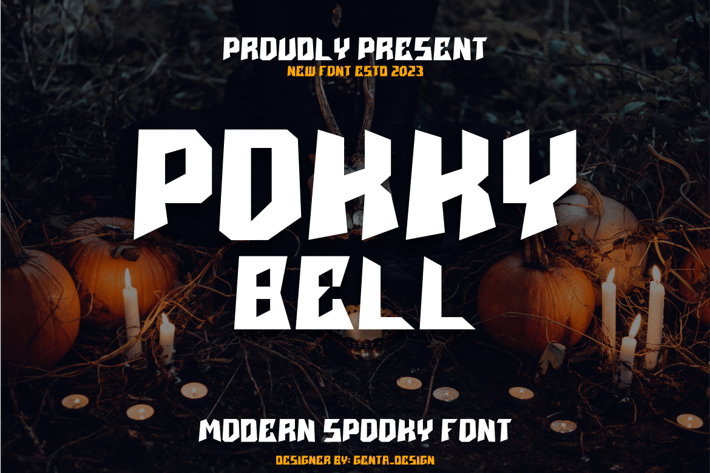
Pokkybell - Modern Font
Introducing our new product Pokkybell - Modern Font Modern Font
Pokkybell - Modern Font - Modern Font is a bold and authentic display font. The font is suitable for any branding project like logo, t-shirt printing, esport, and many more. outstanding in a wide range of contexts.
lowercase